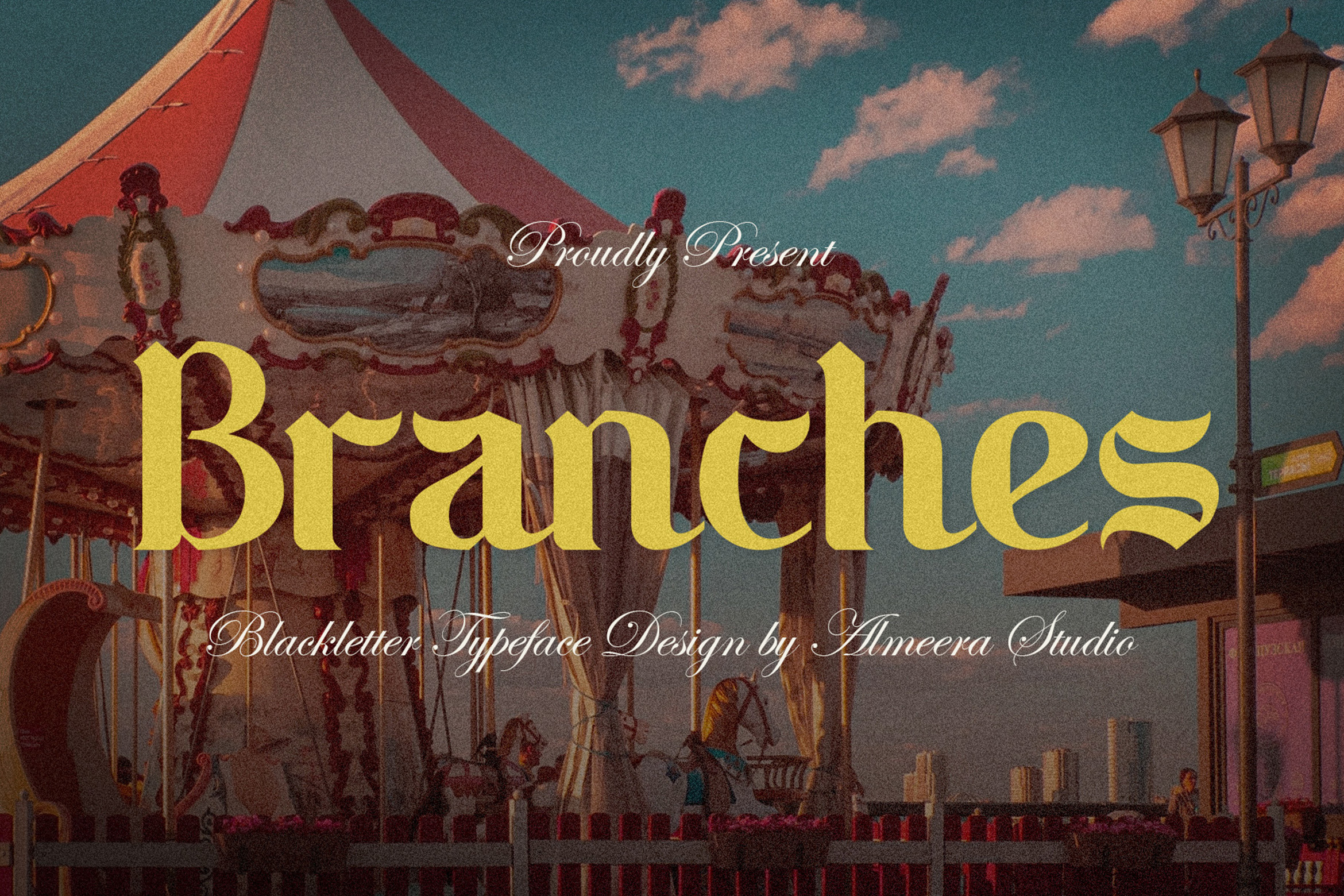
Branches | Blackletter Font
Introducing Branches - Blackletter Font. Branches is a Blackletter Font font, best used as a display for headings, logos, branding, magazines, product packaging and invitations.